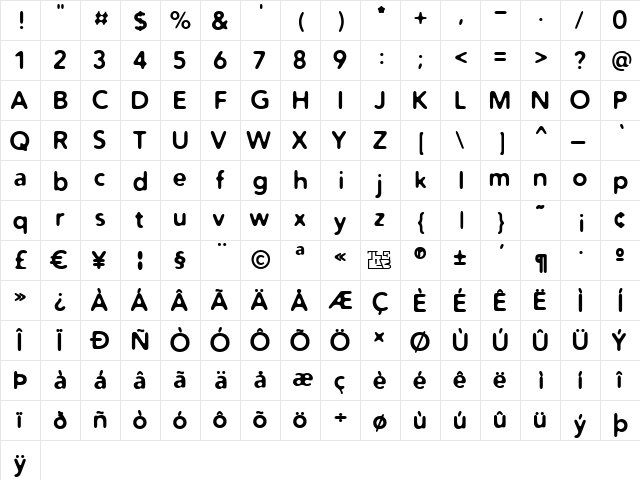
Distro Bold
| Designer | Peter Ramsey & Apostrophe |
Design Context for Distro Typeface
Distro takes a measured approach to typography — its balanced proportions and neutral character make it a reliable workhorse for both digital and print work. The heavy weight commands attention and anchors typographic hierarchies.